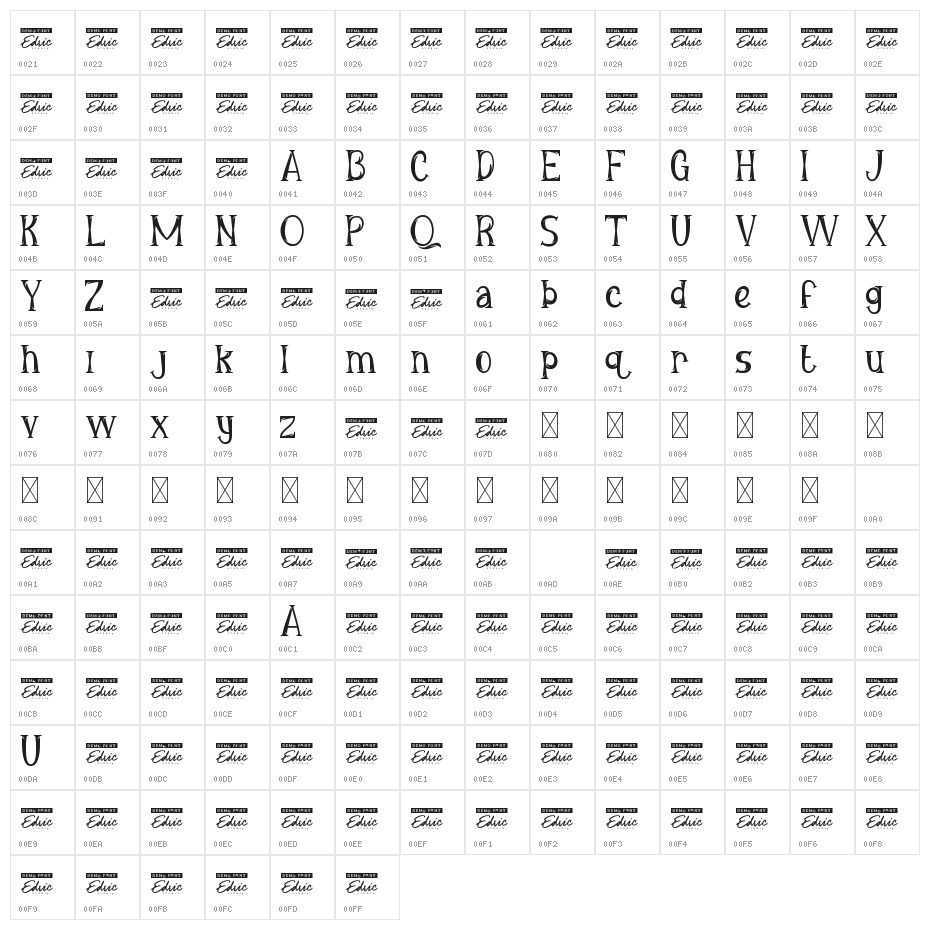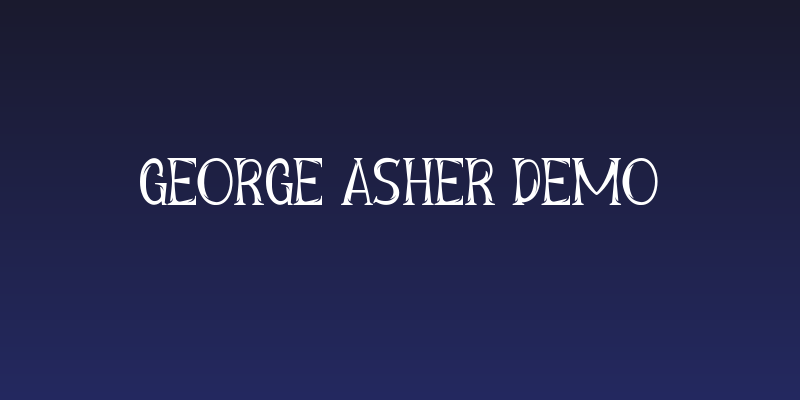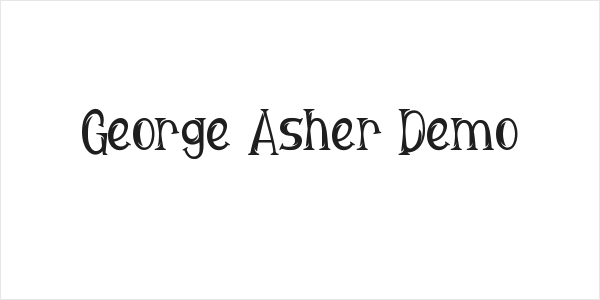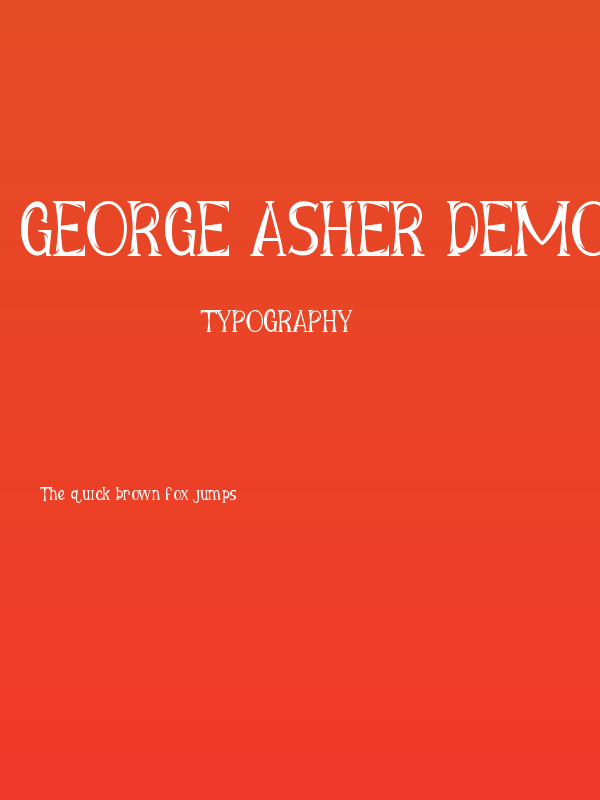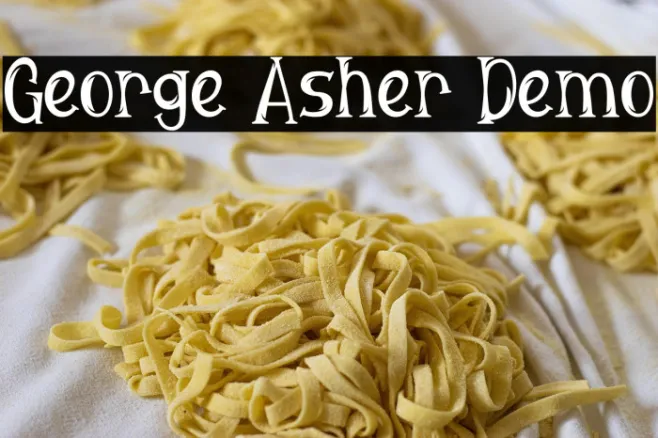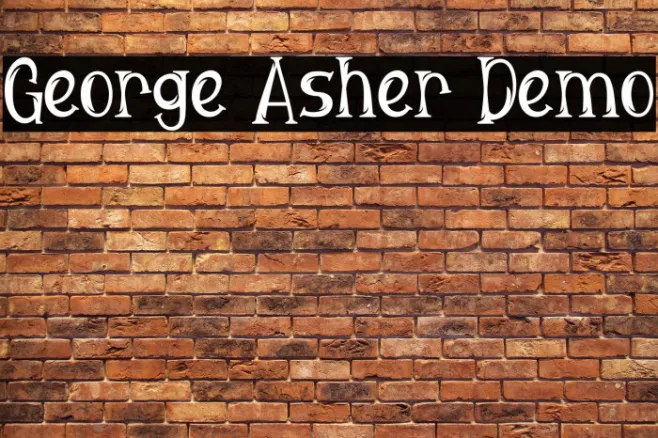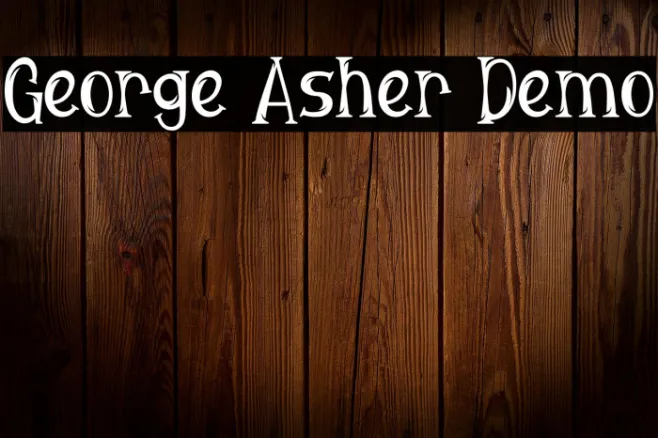
George Asher Demo Font
George Asher Demo Description
This font features a unique and artistic style, characterized by its bold and dramatic strokes. The uppercase letters have a distinctive flair with sharp, angular serifs that give them a dynamic and energetic appearance. The lowercase letters maintain a consistent style, with rounded edges and a playful yet sophisticated look. The font's overall design is both decorative and functional, making it suitable for a variety of creative projects. Its bold presence is balanced by a moderate contrast in stroke thickness, providing readability while maintaining its artistic flair. The spacing between characters is normal, ensuring legibility without compromising its decorative elements.
| Proposed Projects | Ideal for branding, posters, headlines, and any project that requires a bold, artistic touch. |